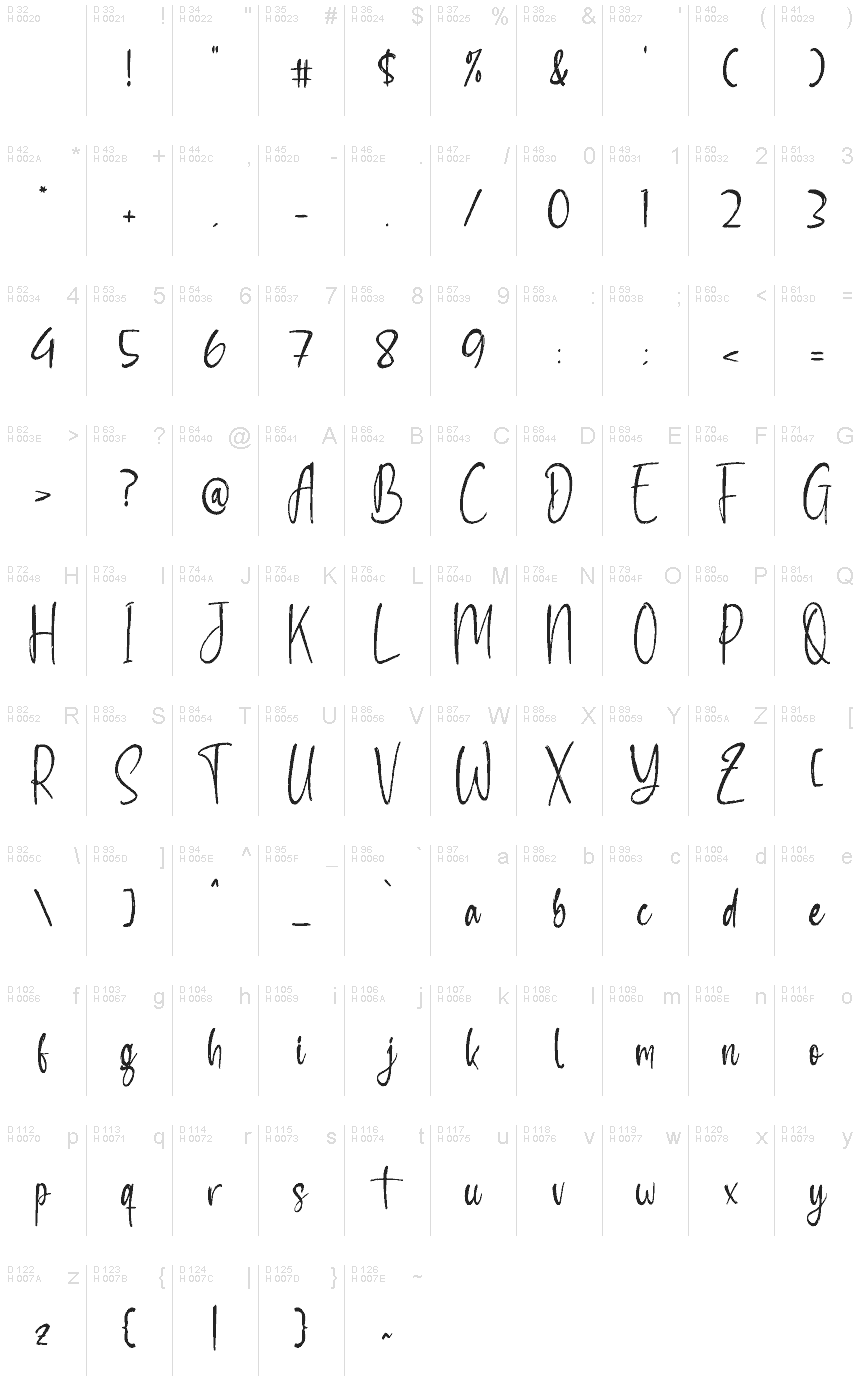
Molinattess
Molinattess font by Letterena Studios is a casual handwriting typeface that reflects personality. It features light letters with a modern everyday appeal and unique handwritten aesthetics. Letters are slightly condensed in width which adds additional artistic flair to the overall visual style.
Versatile, expressive, and free for use, Molinattess is ideal for logos, branding projects, products package design, labels, photography watermarks or signature overlay images. Enjoy a pleasant look on social media ads/ posts, invitations or greeting cards as well as on blogs or mobile apps interface & buttons.